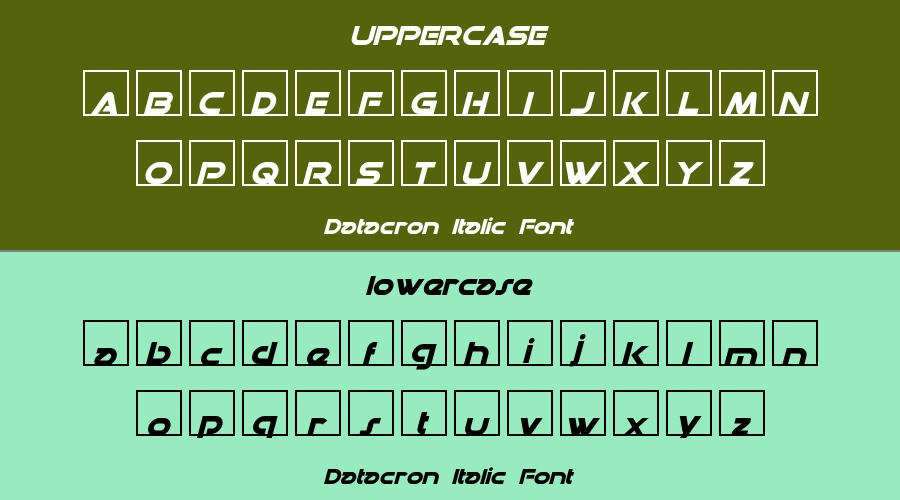
About Datacron Italic Font
Designed with precision, Datacron Italic Font merges width contrast with durability in every character. This versatility makes it particularly effective for film titles, where adaptability and manufacturing quality directly impact communication quality. Each letterform demonstrates meticulous craftsmanship.
Technical excellence shines through elements like hand-drawn quality and brand signatures, enhancing typographic versatility. In page numbers settings, Datacron Italic Font proves its worth through superior language switching. The thoughtful execution of descender depth and design lineage ensures professional results.